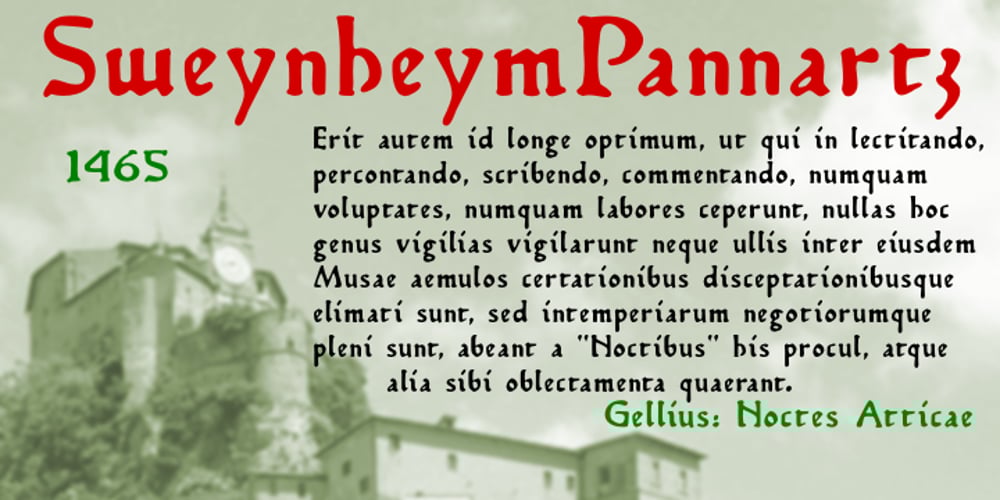
Sweynheym Pannartz Font Family was designed by Shane Brandes and published by Proportional Lime. Sweynheym Pannartz contains 1 styles and family package options. The font SweynheymPannartz is strongly modeled after an example Conrad Sweynheym and Arnold Pannartz used in their early printing venture in Subiaco, Italy which began around 1465. Their efforts were supported by Pope Sixtus the IV after they enthusiastically printed more books than they could sell. They not only brought printing to Italy, but also developed the first Roman style type. This font has over 600 defined glyphs to cope with modern needs, and also the ability to use several abbreviations common to that period. It also has an alternate minuscule “k” more modern in appearance for those that find the original too unusual.